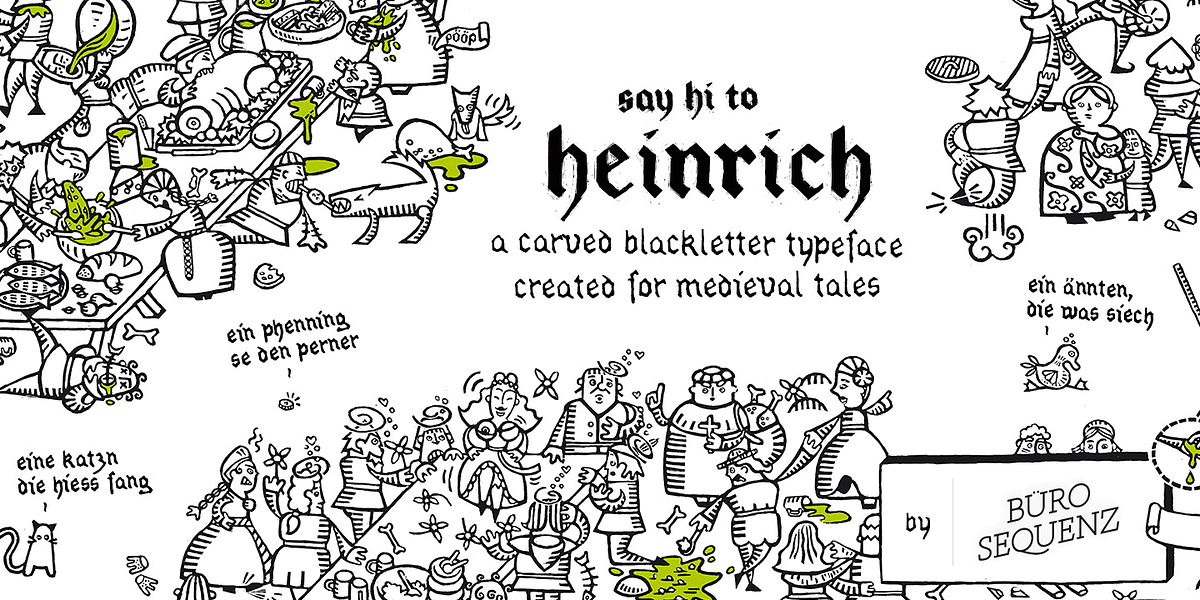
Heinrich
Heinrich is a blackletter typeface designed by Anna Furrer in 2007. It was created for illustrations accompanying a story set in the Middle Ages. The font's design draws inspiration from medieval aesthetics and features intricate details, particularly noticeable in its 'Detail' weight which is ideal for larger text applications like headlines.